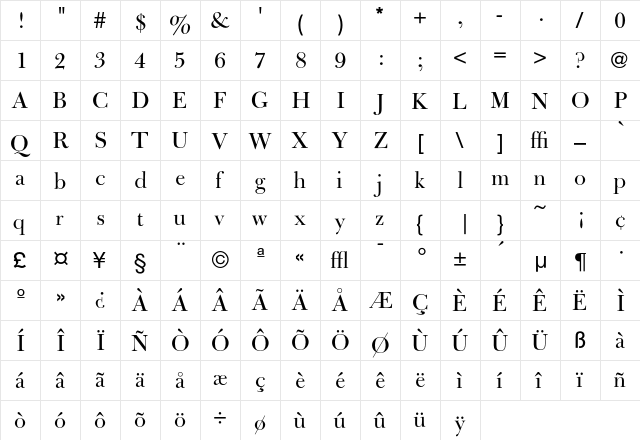
Bulmer Roman
Design Context for Bulmer Typeface
Bulmer is a composed and adaptable typeface that performs quietly and consistently across a wide range of design contexts.